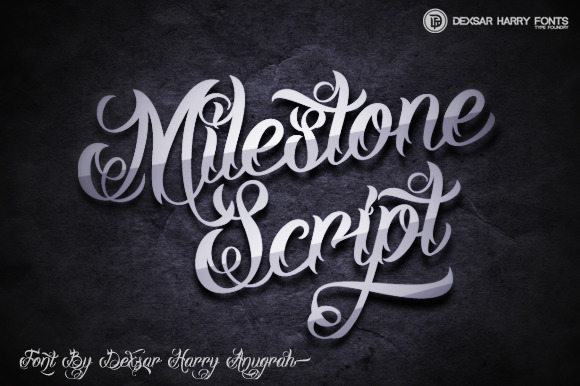
Milestone Script - Tattoo Font
DHF Milestone Script is the script font with a lot of alternates character. Milestone Script was made for people who like the script style and tattoo style. This font have a lot OpenType feature: Contextual Alternate, Swash, Ligatures, Styllistic Alternate, Ordinals & Fraction.